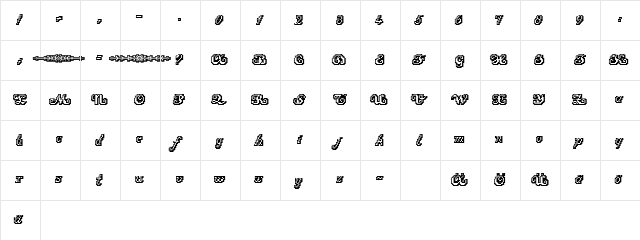
Hannelore Outline
| Style | Outline |
Hannelore brings ornamental detail and strong personality to headlines and identities, where visual impact matters more than quiet functionality.
Font Pairing: Pair with a clean neutral sans-serif for body copy to let Hannelore's character lead without overwhelming the composition.
Pro Tip: Treat Hannelore as the centrepiece of your typographic hierarchy. One strong heading set in a decorative face can carry an entire layout.